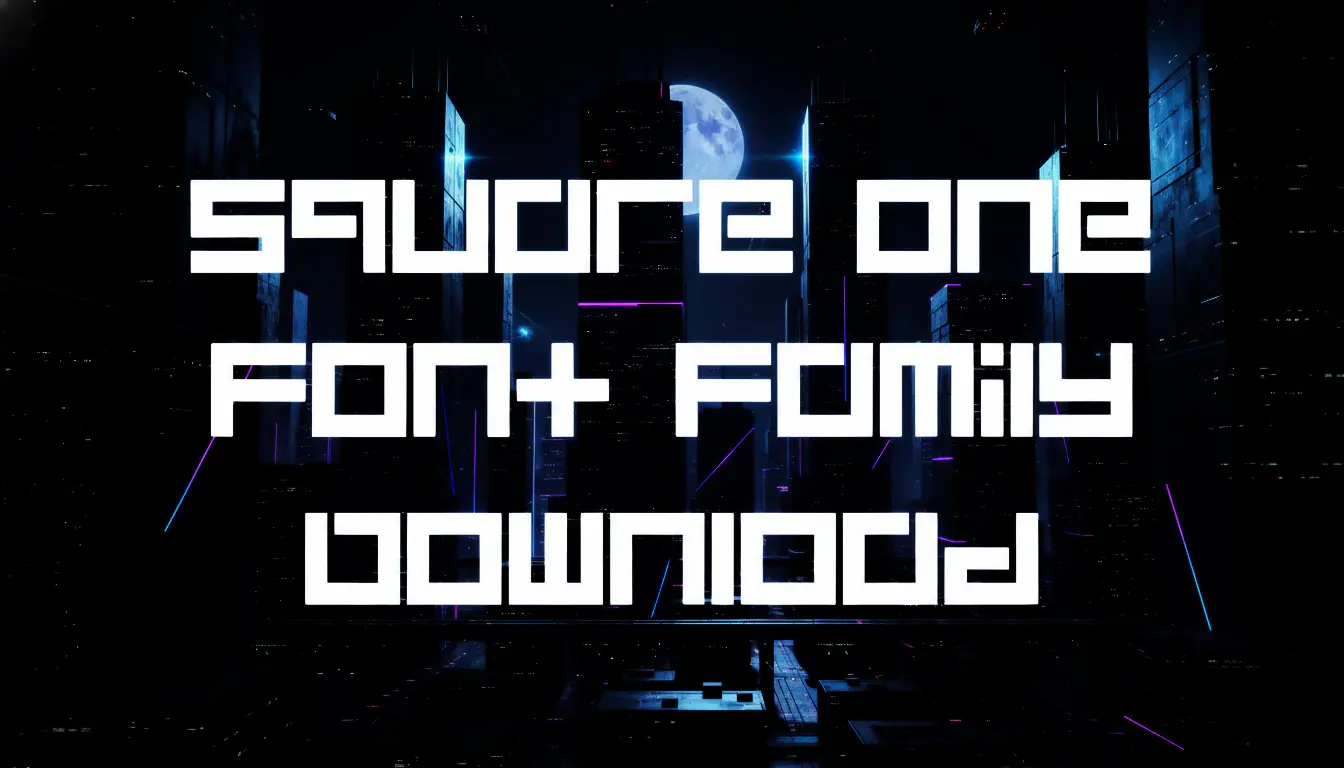
Square One Font
Square One is a techno font designed by Darrell Flood and published by High-Logic / Made with FontCreator. Squared-off, geometric letters give it a digital, high-tech feel. You get four styles in one free ZIP, and the preview above lets you test each one before you download.
- Designer: Darrell Flood
- Publisher: High-Logic / Made with FontCreator
What You Can Type With Square One
With complete upper and lowercase letters and all ten digits, Square One is ready for real wording, not just a single headline. Common punctuation such as &, !, ? and @ is included as well. It doesn't include accented letters such as é or ñ, which makes it an English-only font.
Where Square One Works Best
Think of Square One for gaming logos, tech branding and futuristic posters. Try it on a dark background with a bright accent color for a sharp, modern look. Because the family has more than one style, you can mix them in a single design for headings, subheadings and highlights.
Does Square One support accented letters?
No. Square One has no accented letters such as é, ñ or ü, so it's best for English text.
What fonts pair well with Square One?
A simple sans serif like Roboto keeps longer text easy to read next to it.